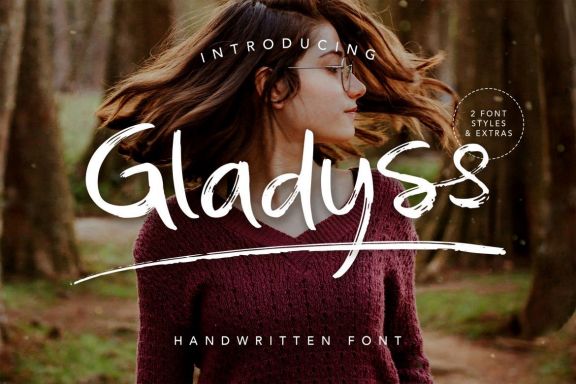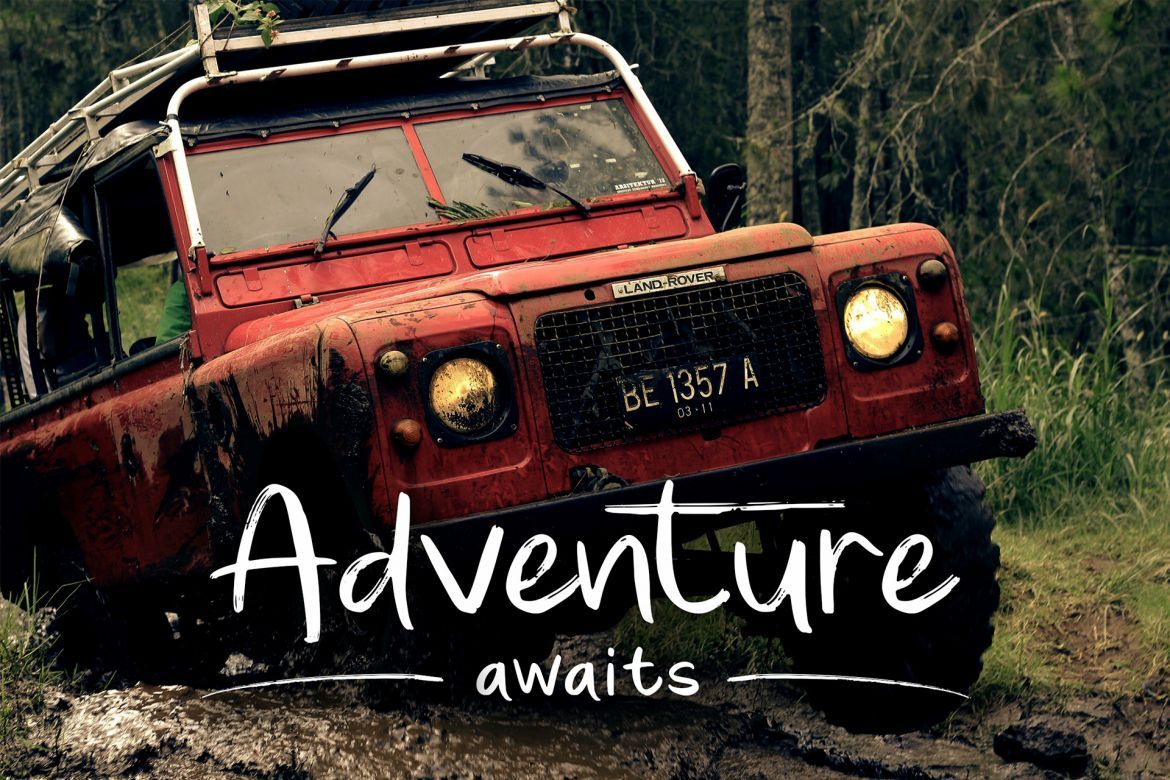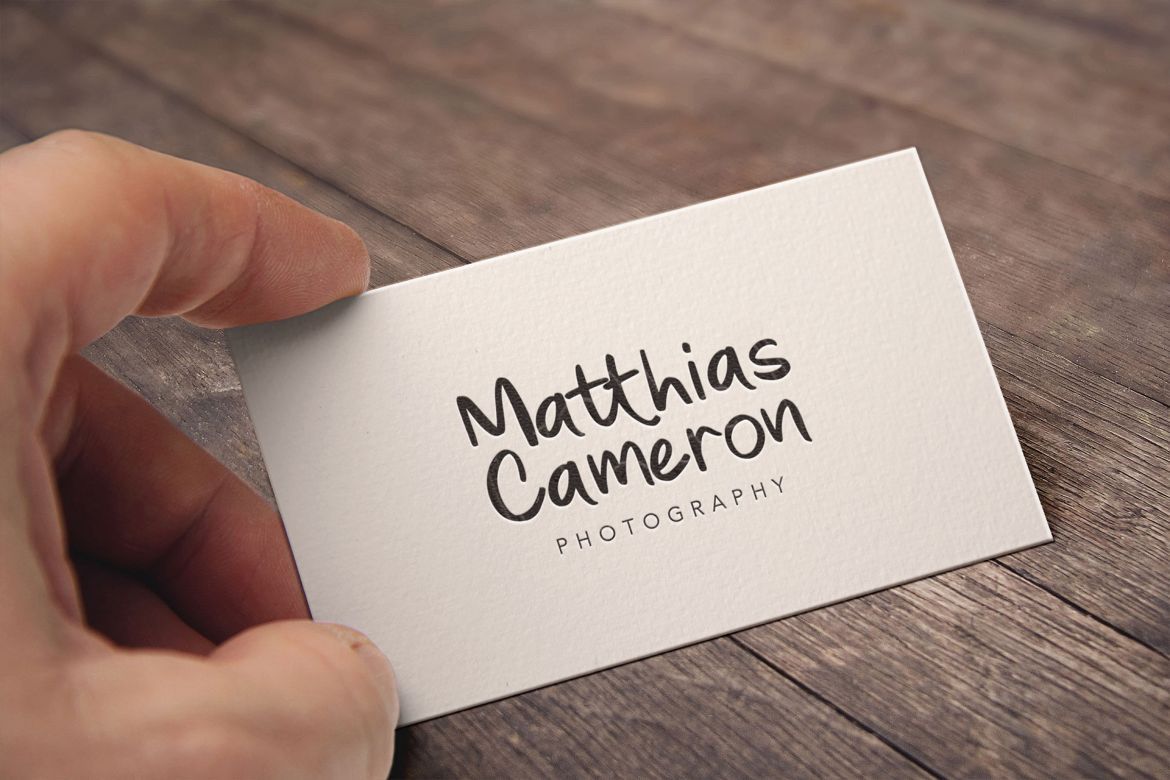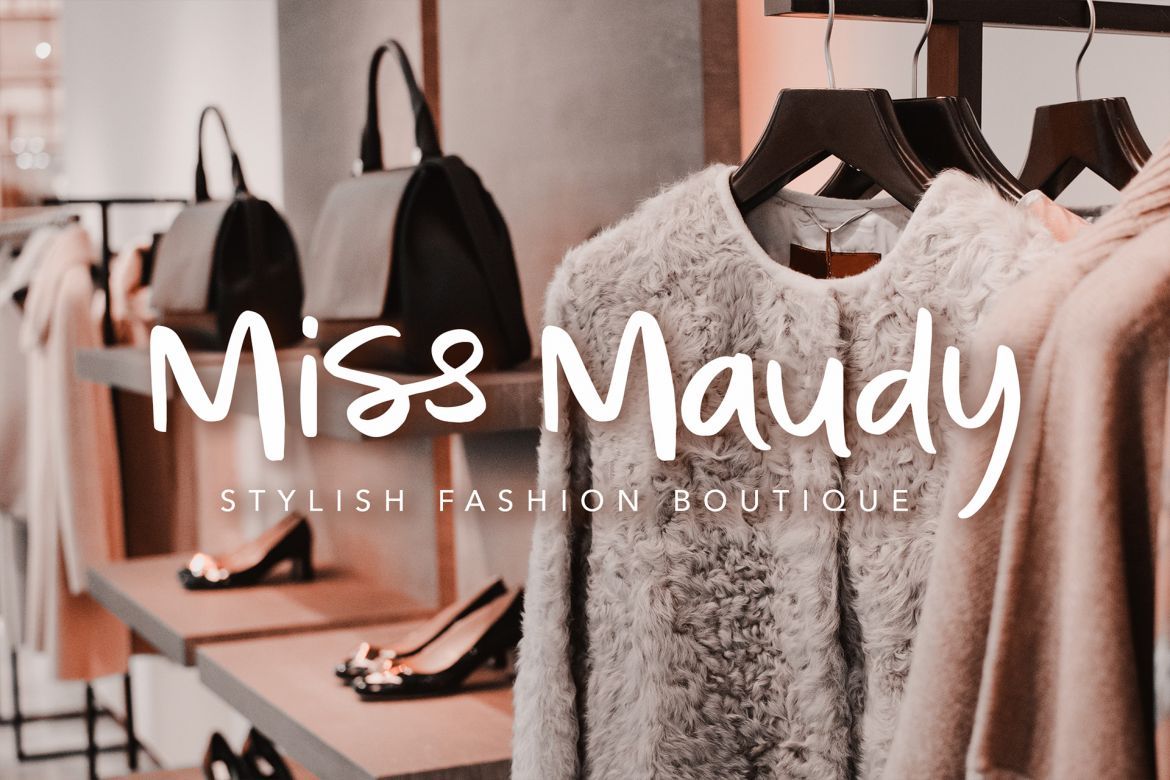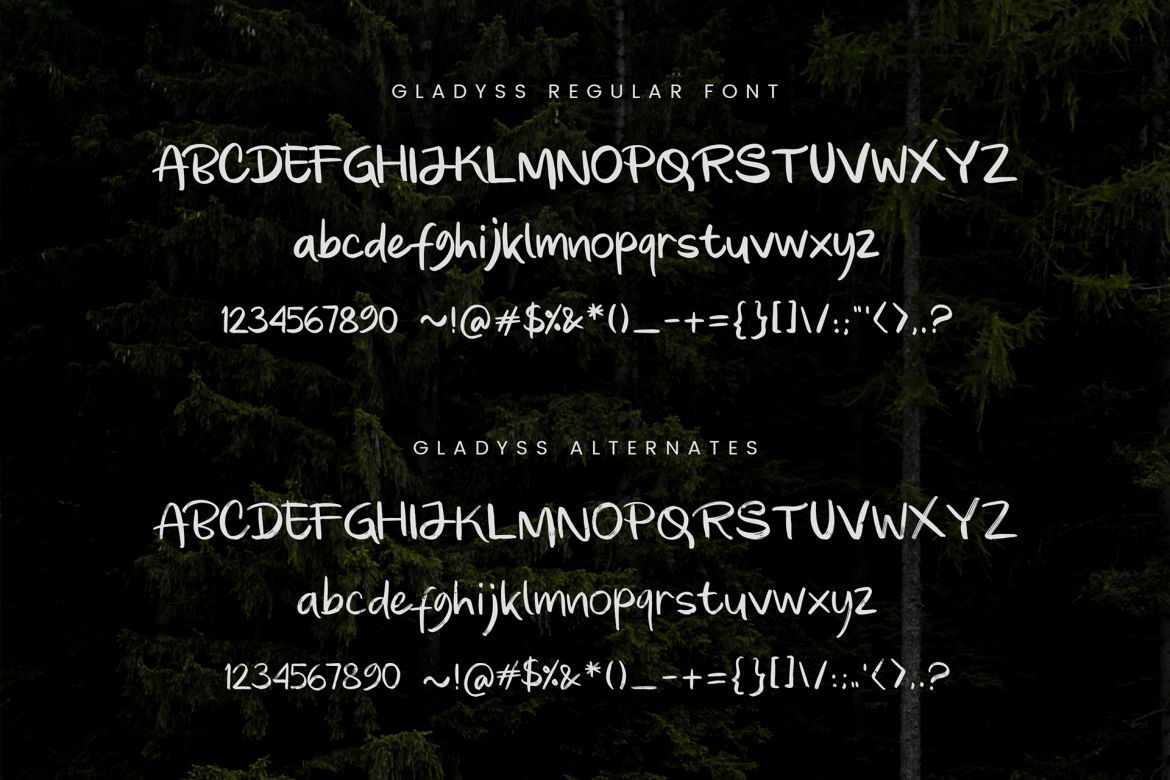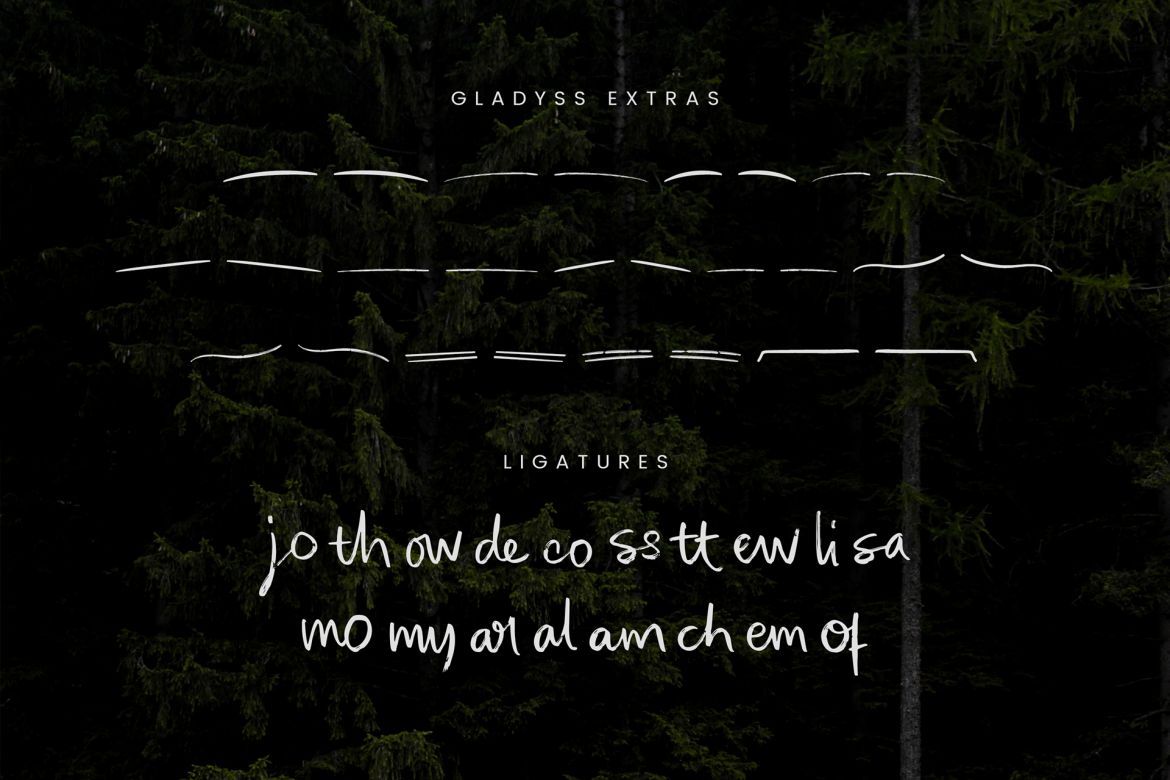
Gladyss Handwritten Font
Introducing Gladyss: A handwritten font with a strong and fun feel united into one. Gladyss is perfect for branding projects, product packaging – or a stylish text overlay to any background image.
• gladyss alt - font type with quick dry strokes and a signature style
• gladyss extras - a set of 26 hand-drawn swashes, the perfect finishing touch to underline your gladyss text. simply install this as a separate font, select it from your font menu and type any a-z character to create a swash.
• gladyss regular - font type with bold and clean character